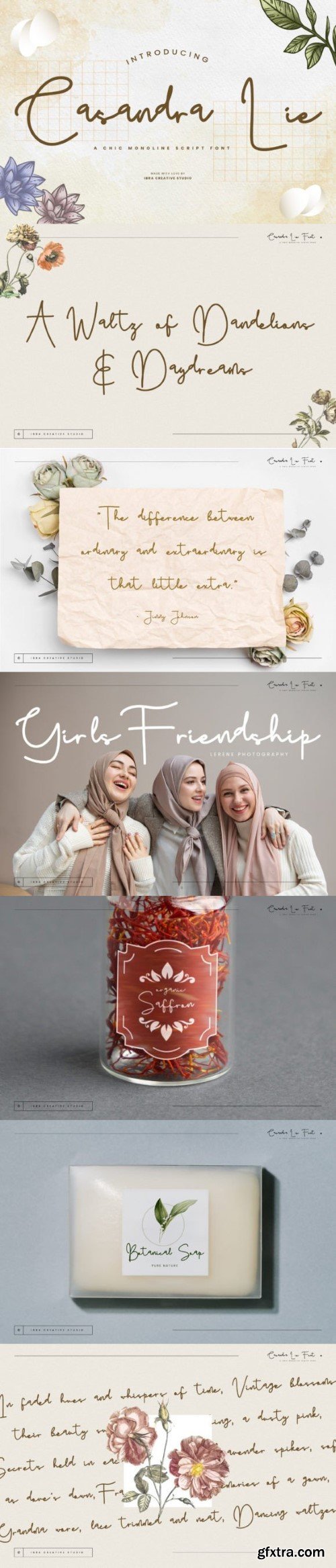
卡桑德拉字体
Casandra Lie, a name like a whispered secret, perfectly embodies the essence of this chic monoline script font. Imagine the delicate stroke of a fine penmanship teacher gliding across paper, leaving behind an effortless trail of ink that dances and twirls with understated elegance. Every letter whispers tales of romance and intrigue, their slender forms adorned with graceful swashes and subtle flourishes that hint at a hidden passion. Think vintage Parisian boudoirs illuminated by candlelight, secret love letters penned under twilight skies, and the airy charm of handwritten invitations to soirees under the stars.